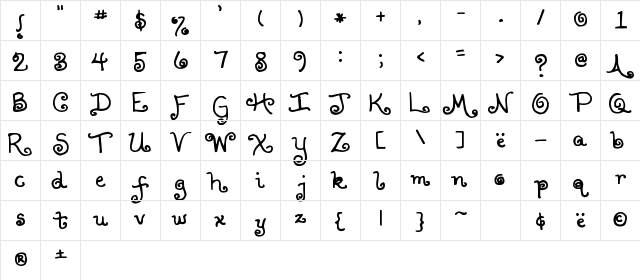
Lollipop Regular
Design Context for Lollipop Typeface
Lollipop is a composed and adaptable typeface that performs quietly and consistently across a wide range of design contexts.
Pro Tip: Use Lollipop in both headline and body roles to test its range before committing to a single application.